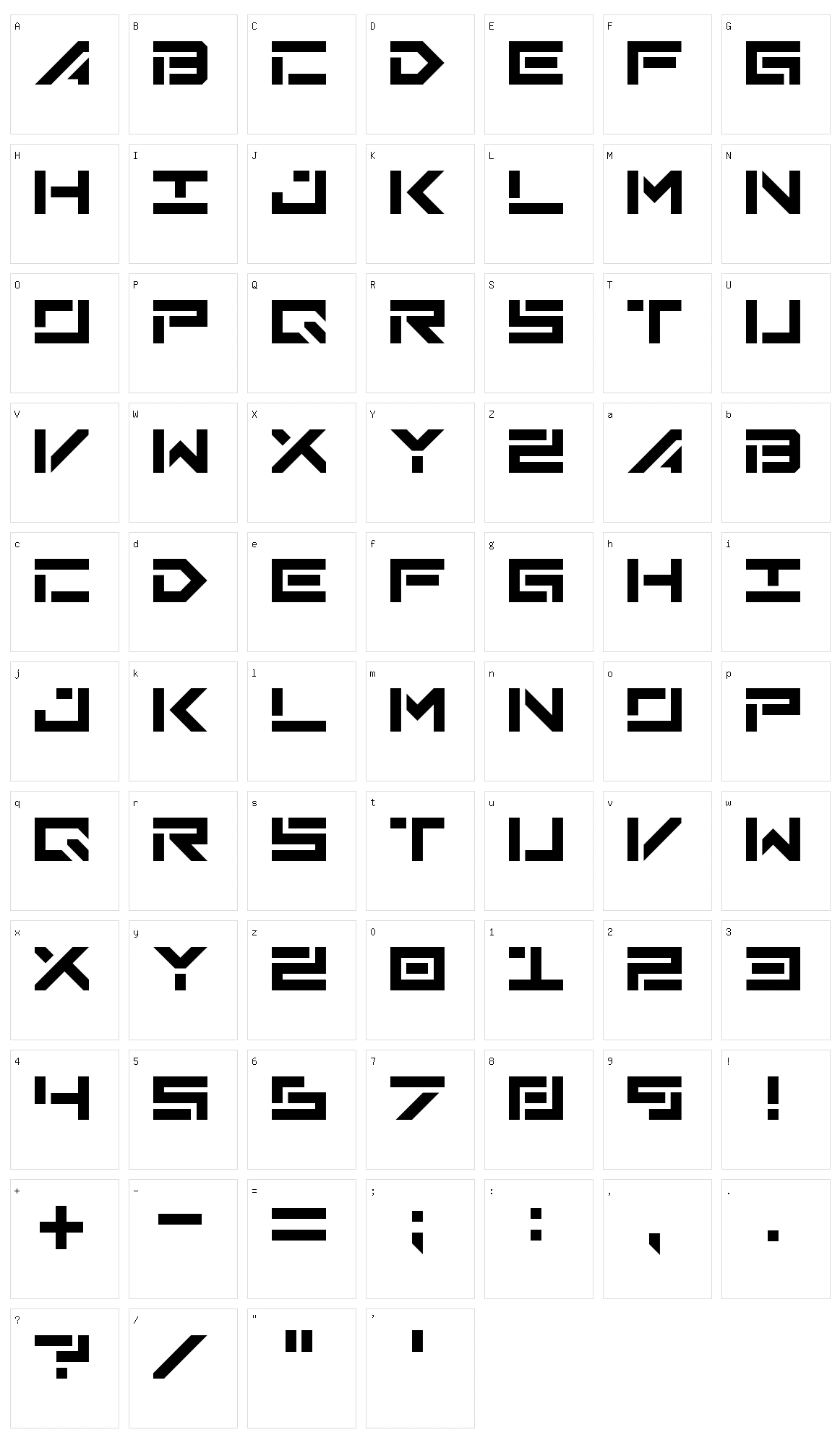
The free font Tenoture is carefully designed by Daymarius, showcasing a thoughtful balance of creativity and usability and falls under the Square font style. When you download the ZIP file, it contains only 5.61 KB of font files, making it lightweight and quick to download. Please review the license details below to understand permitted usage and distribution rights. If license information is not available, we recommend using this font for personal projects only or contacting the author directly for commercial usage permissions.